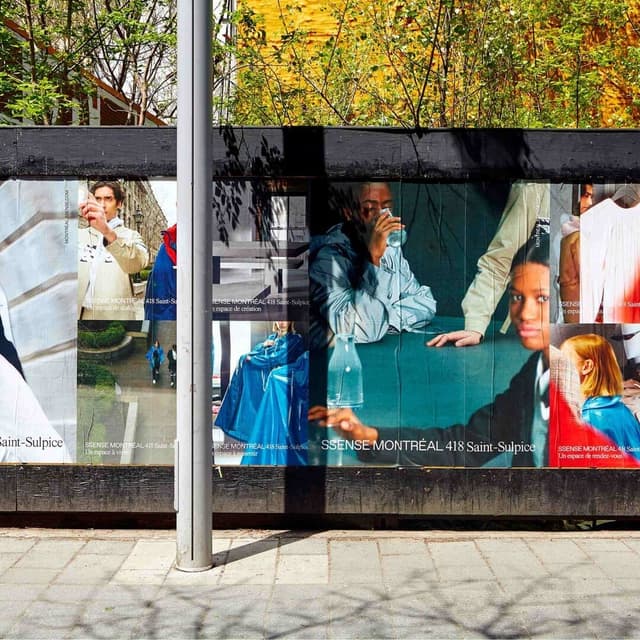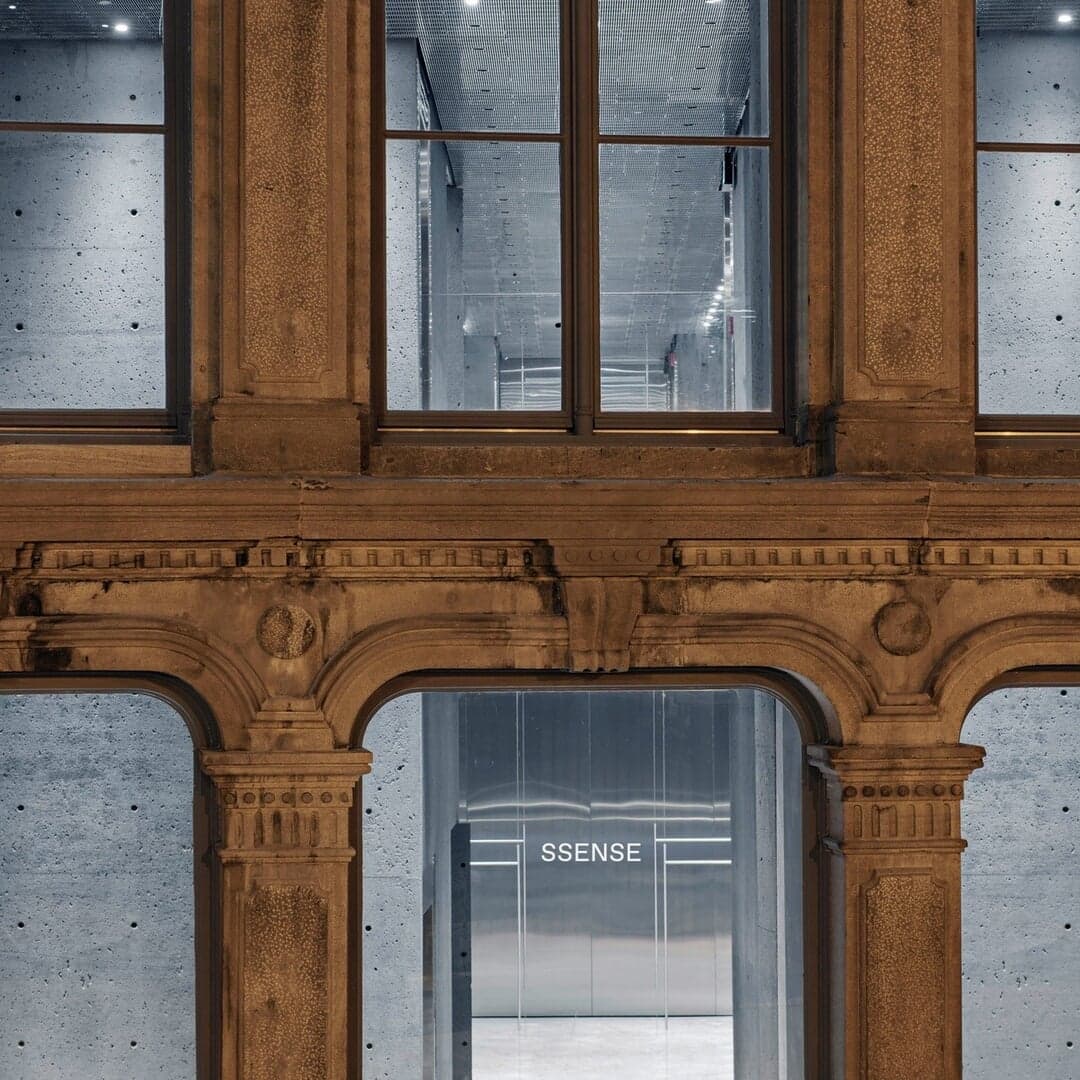
Dinamo created a bespoke corporate typeface for SSENSE, featuring two weights with matching italics. The typeface was launched as part of the retailer’s major brand redesign led by Eric Hu and Matthew Tsang, reflecting SSENSE’s refined and contemporary aesthetic.
Set in a custom typeface